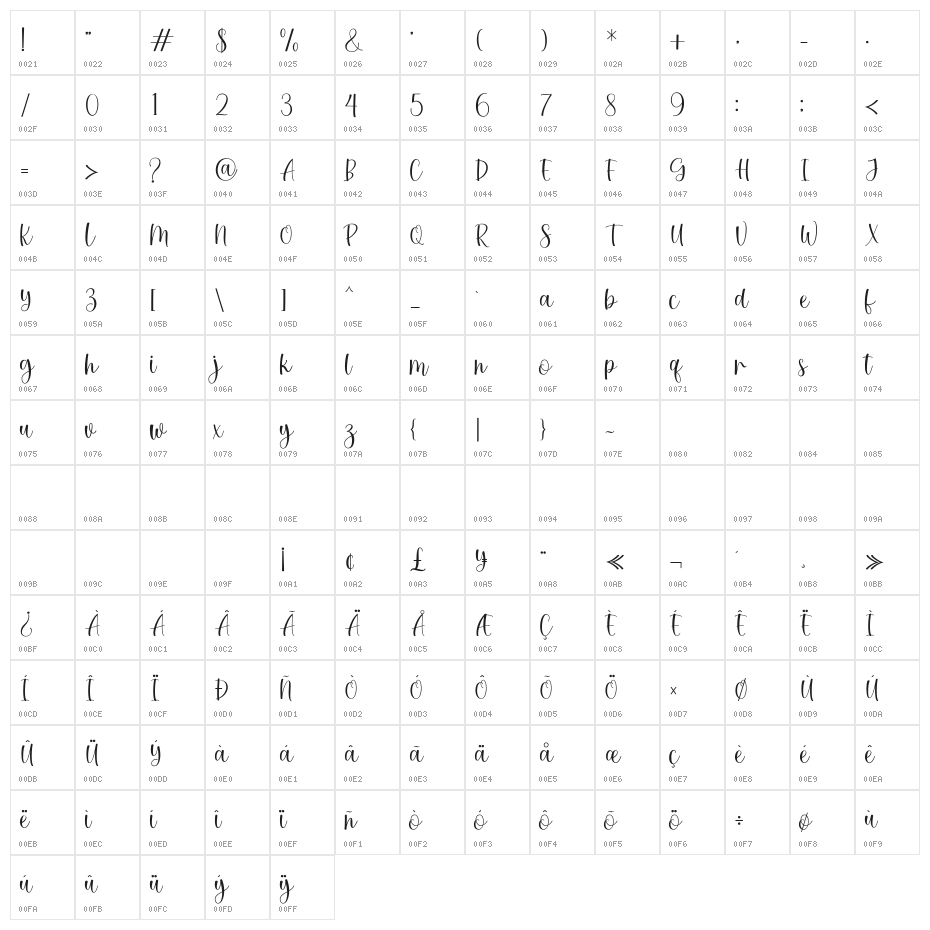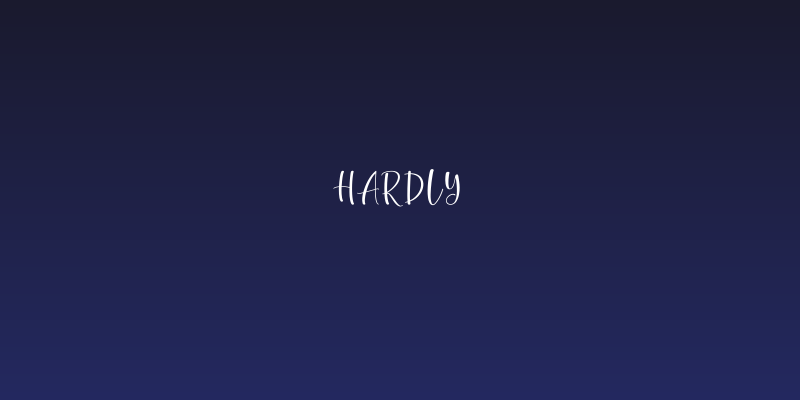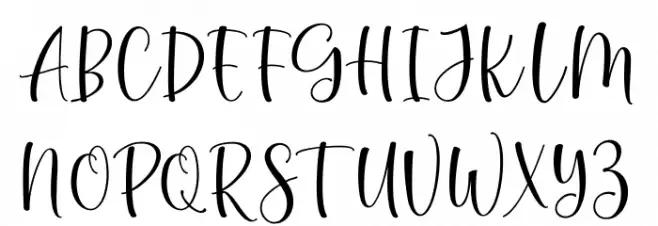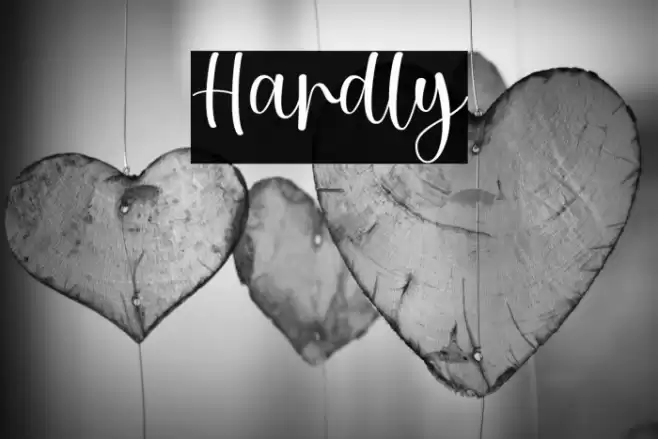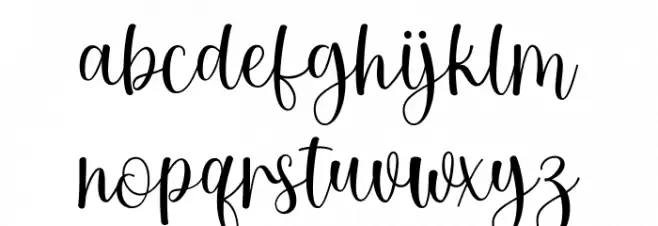
Hardly Font
Hardly Description
A handwritten, cursive script font with a casual and elegant style, featuring varying stroke widths and a slightly playful appearance.
| Overall Style | Casual, Elegant, Handwritten |
| Use Case | Invitations, branding, social media, personal projects |